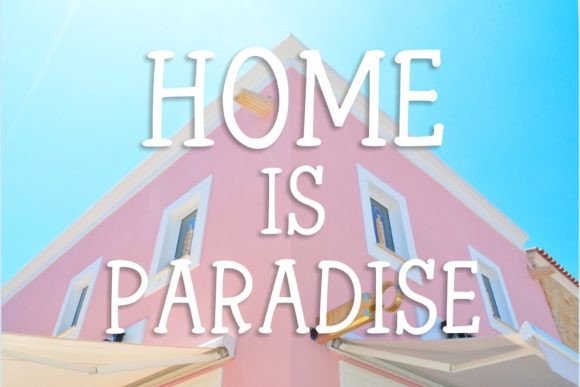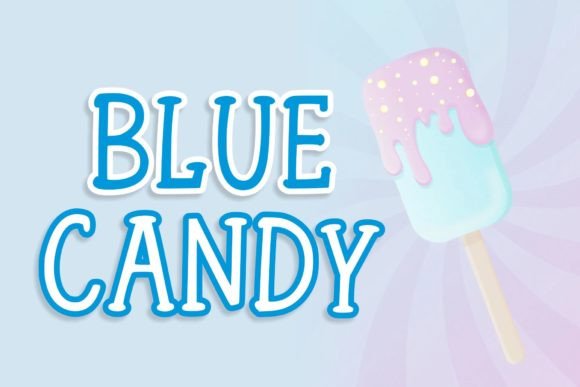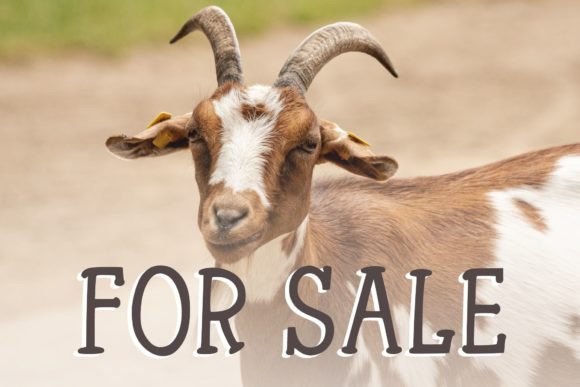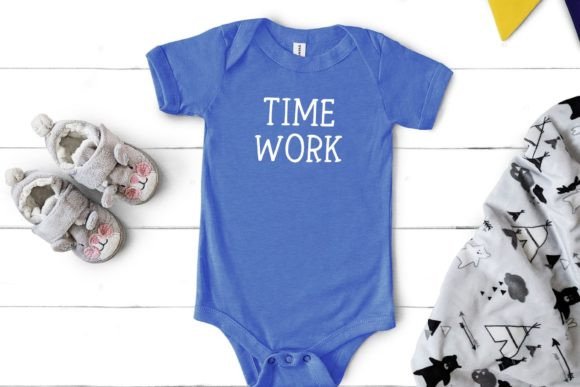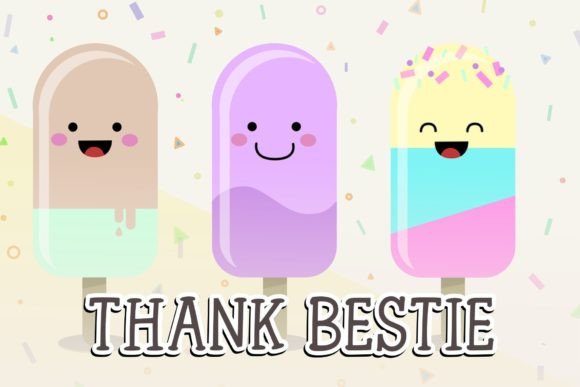
The Absurd Font: A Sweet and Playful Choice for Your Designs
I still remember the time I was working on a project for a children’s book, and I was struggling to find the perfect font. The client wanted something playful, yet elegant, and I was determined to deliver. That’s when I stumbled upon the Absurd font, and it instantly became my go-to choice. With its sweet character and classic display style, it’s perfect for cartoon-related designs, children’s games, or any creation that requires a lovely touch.
An Honest Review of Absurd Font
What I Love About Absurd Font
- ✨ Unique and playful character that’s perfect for designs that need a touch of whimsy
- 💕 Works well with both digital and print designs
- 🎉 Available in various weights and styles, making it versatile for different design projects
While Absurd font is an excellent choice for many designs, there are a few things to keep in mind:
- 🤔 Some characters may not work well at very small font sizes, so it’s best to use it at larger sizes for optimal results
- ⚠️ Limited availability of extended language support, so it’s best to check the font’s capabilities before using it for multilingual projects
The Backstory of Absurd Font
The Absurd font was designed by a team of typographers who wanted to create a font that’s both playful and elegant. Inspired by classic display fonts, they aimed to create a font that’s versatile and easy to use. The result is a font that’s perfect for designs that need a touch of whimsy and sophistication.
Q: What is the Absurd font?
A: The Absurd font is a classic display font that’s perfect for designs that need a playful and elegant touch.